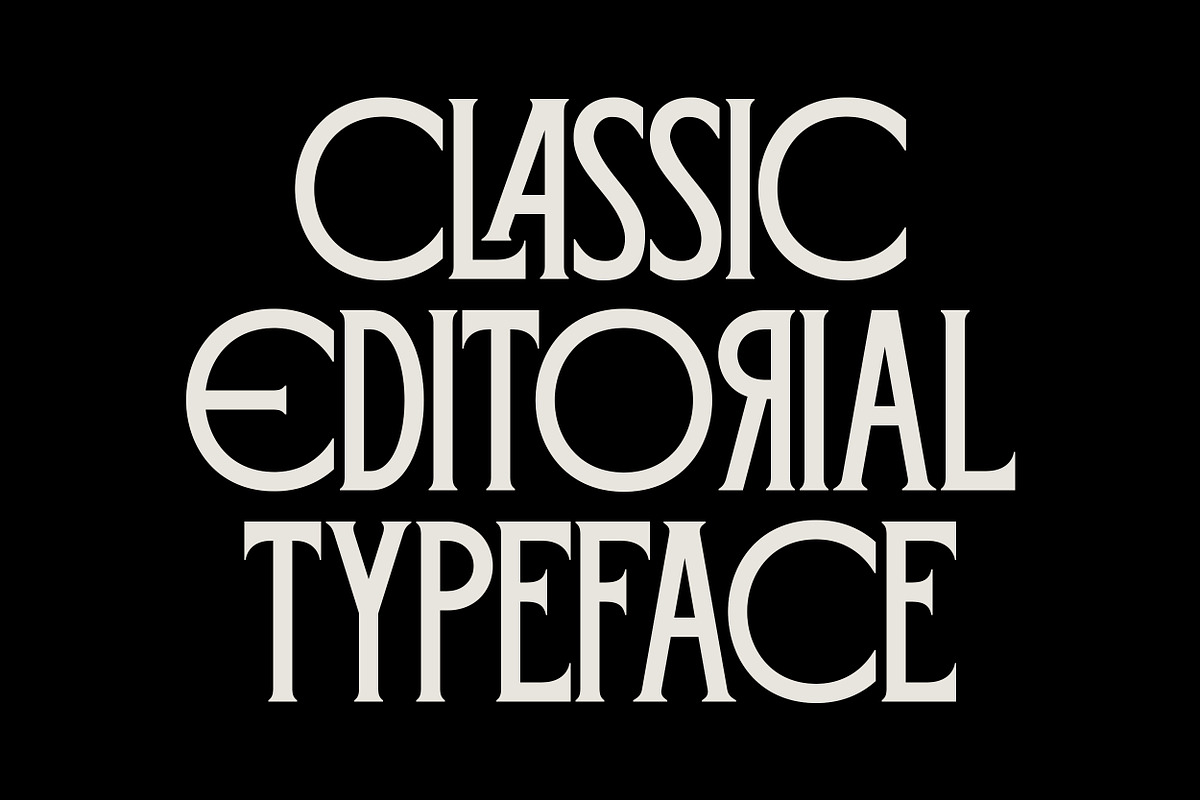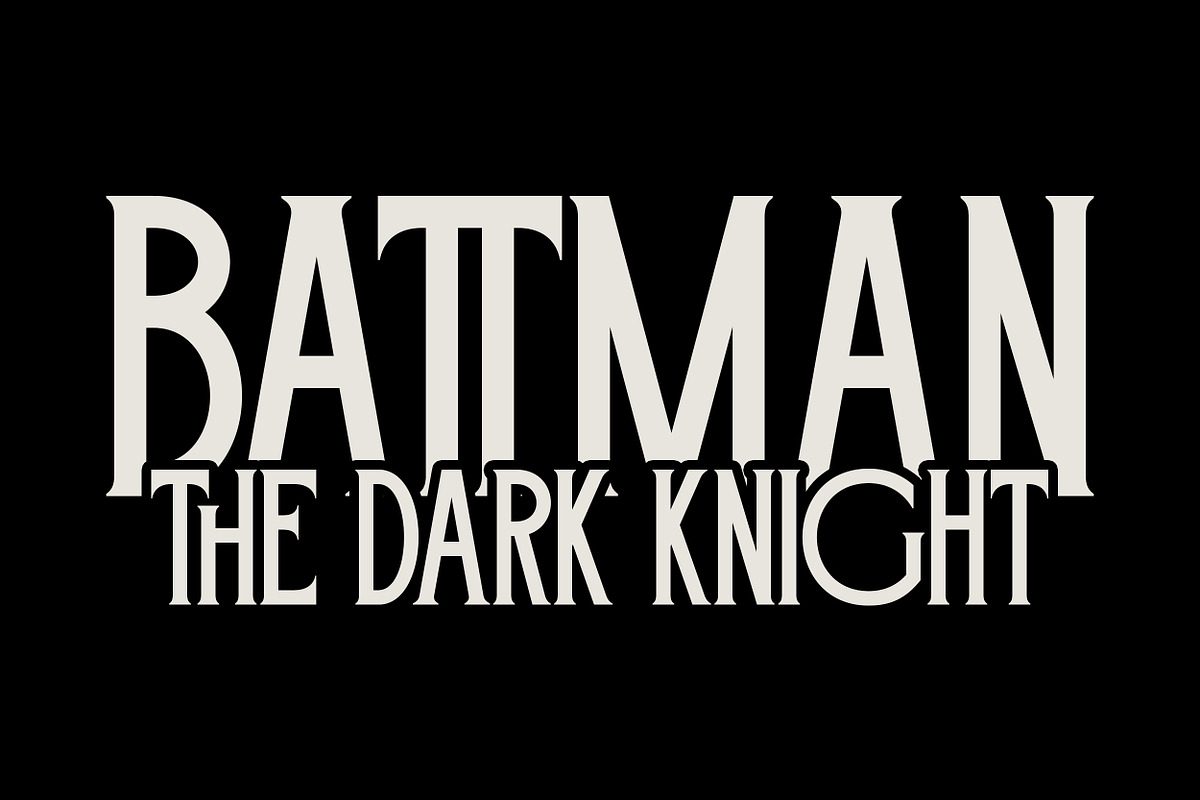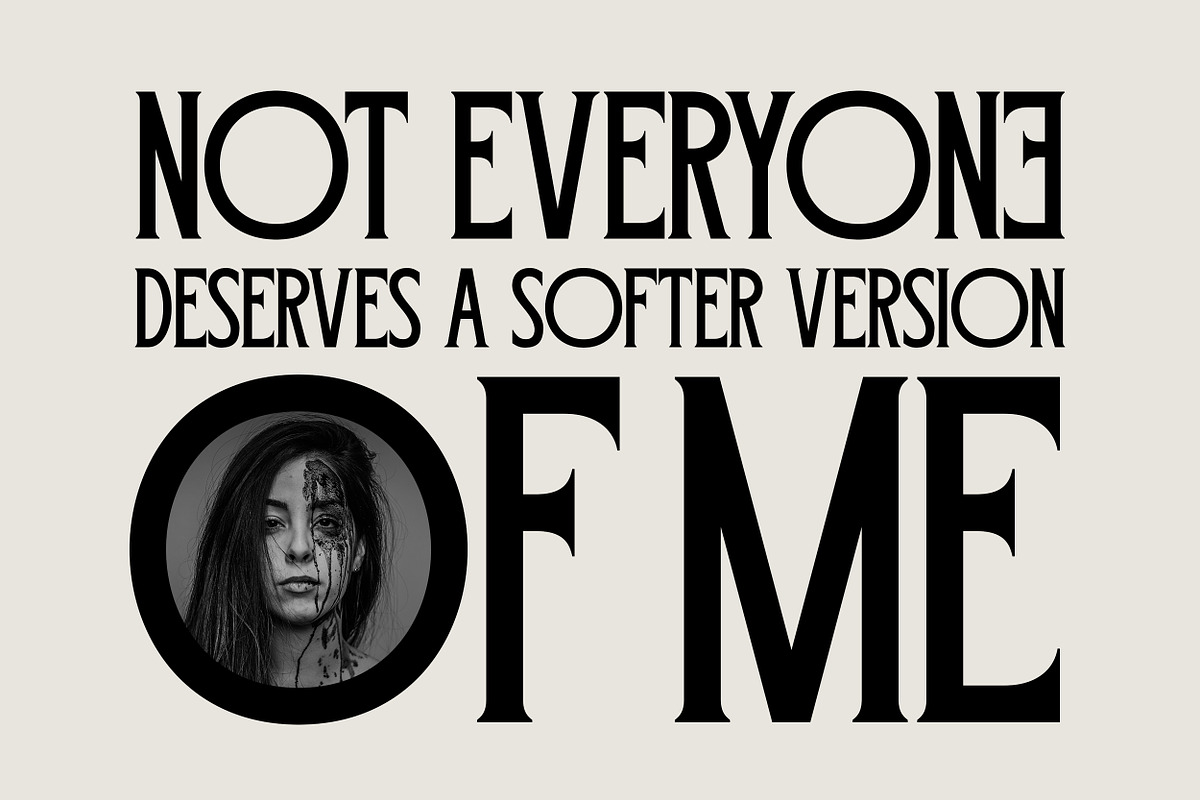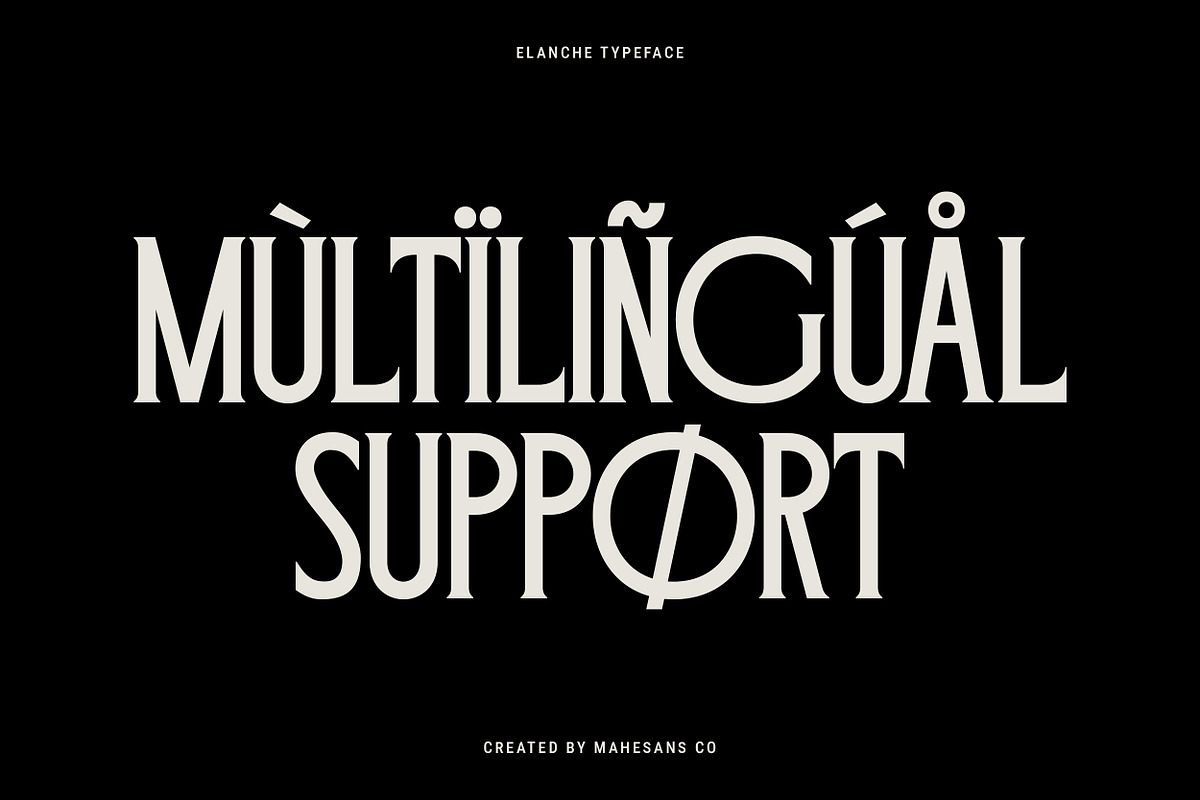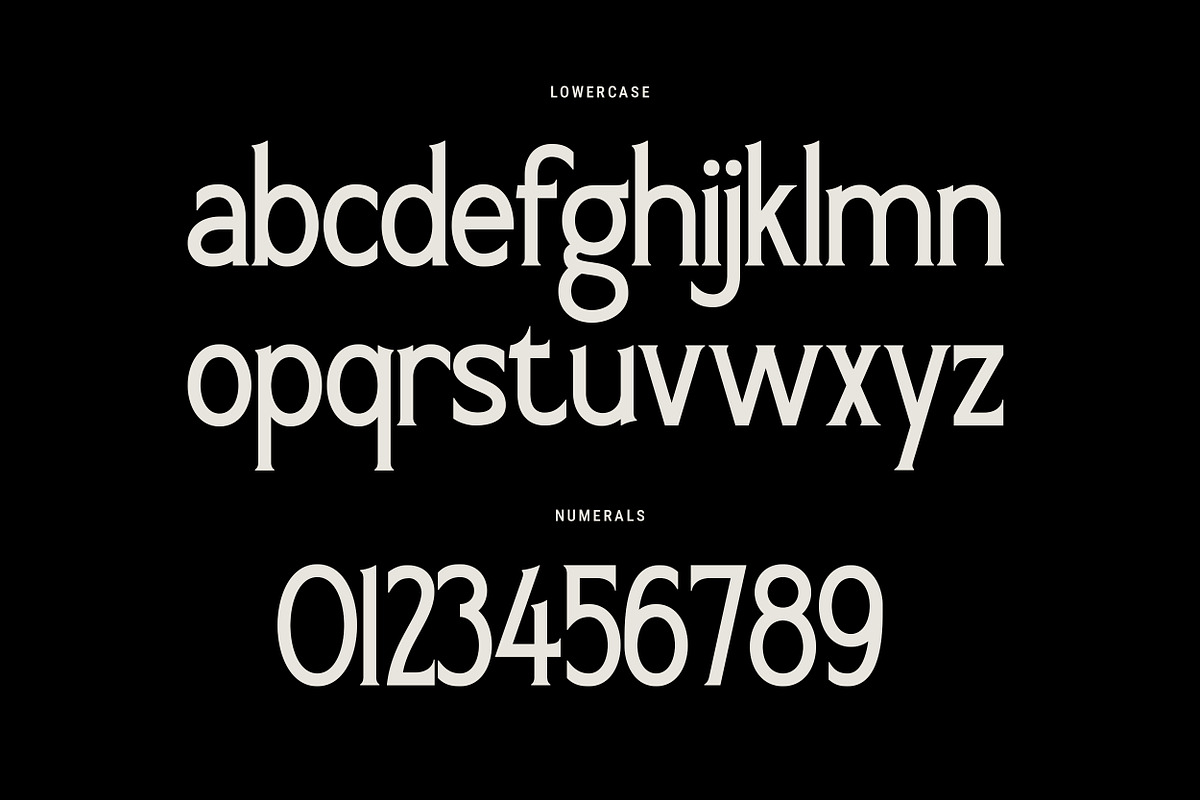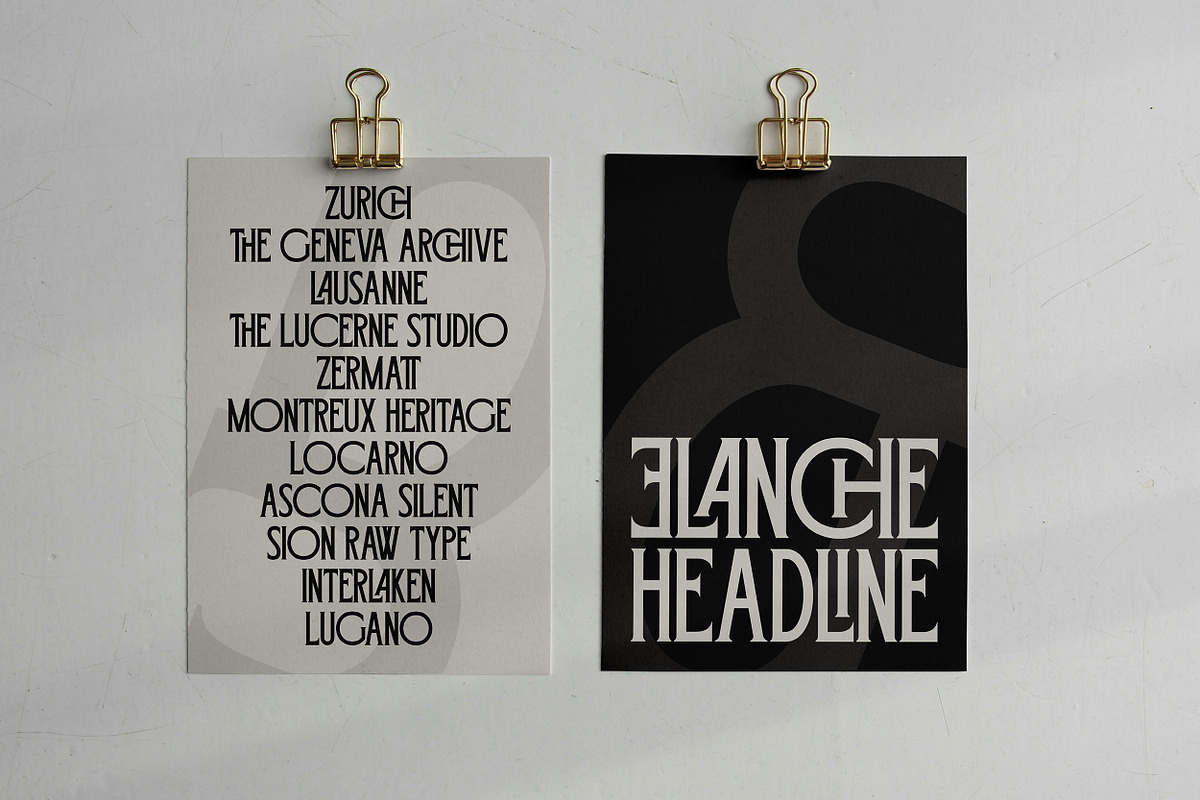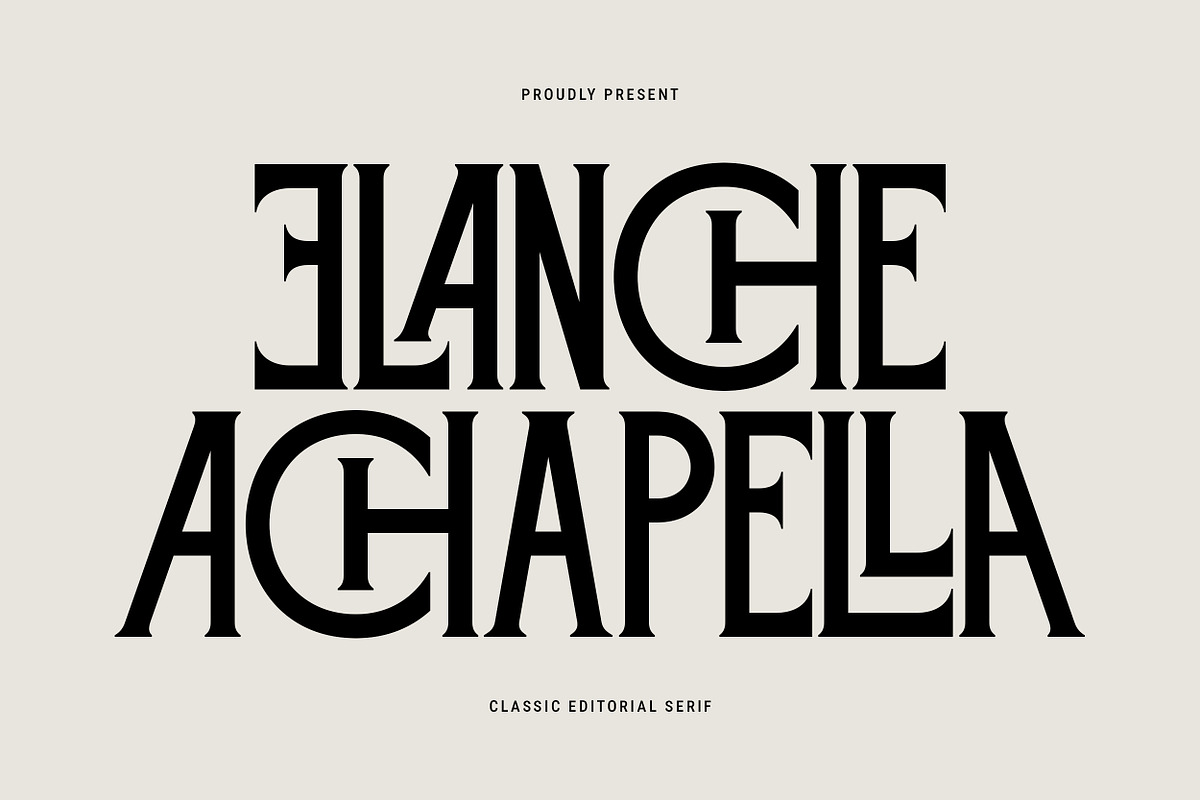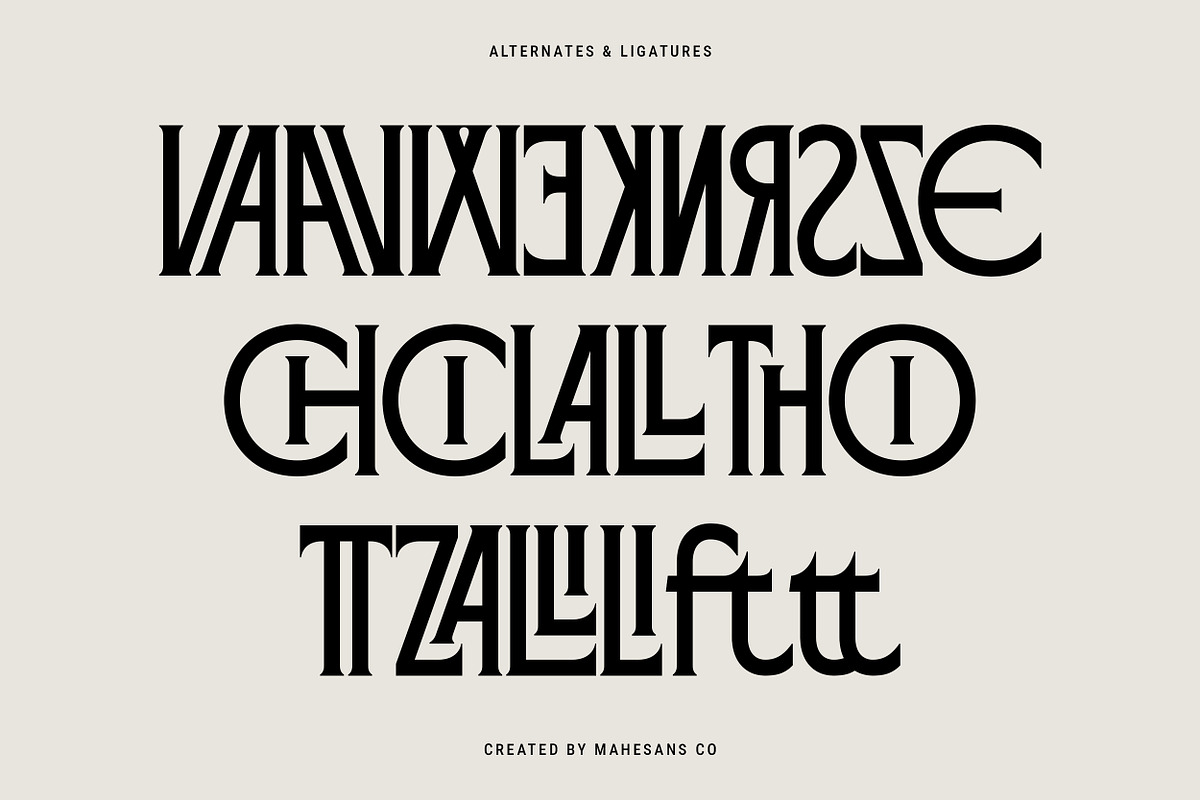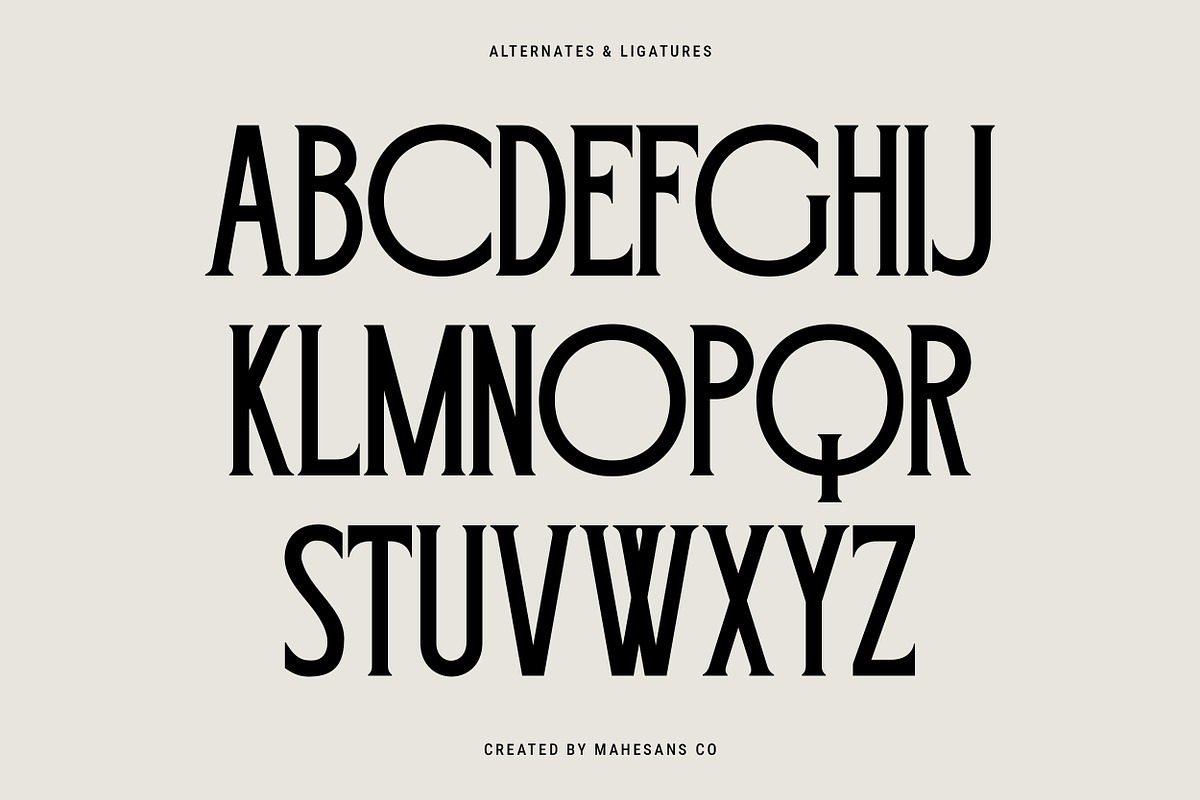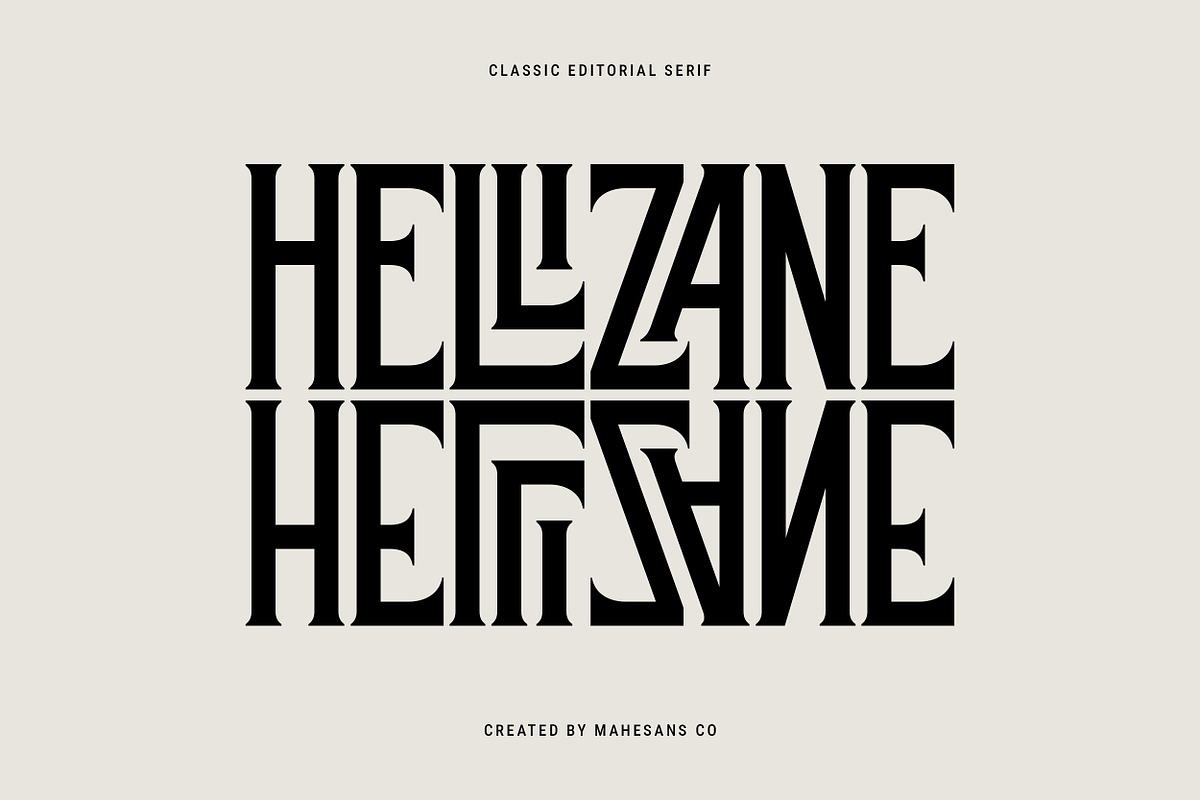
Elanche – Classic Editorial Serif
Elanche is a classic editorial serif typeface designed for timeless elegance and high-impact typography. Inspired by luxury magazines, fashion editorials, and sophisticated branding, Elanche delivers strong character with refined details.
This typeface features beautifully crafted alternates and ligatures that allow designers to create distinctive and expressive typography. With its high contrast strokes and graceful curves, Elanche feels bold yet polished, perfect for projects that demand attention without shouting.
Elanche also comes with full multilingual support, making it reliable for global branding, editorial layouts, book covers, posters, and premium packaging.
Whether you’re designing for fashion, lifestyle, luxury brands, or modern editorial projects, Elanche gives your typography a confident, classic voice with a contemporary edge.
- Editorial & magazine layouts
- Luxury branding & logo
- Fashion & lifestyle designs
- Book covers & posters
- High-end packaging
- Multilanguage